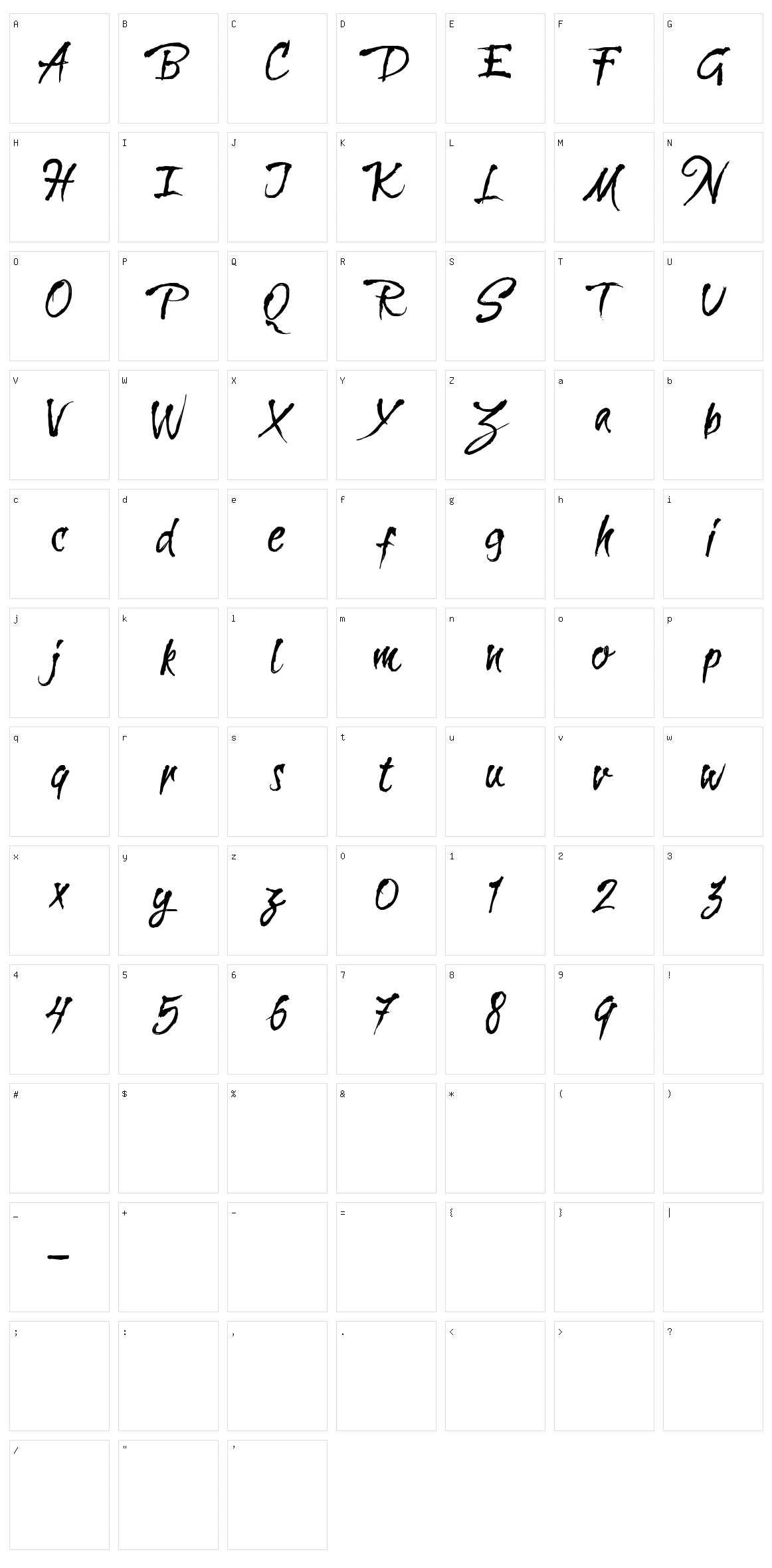
The free font CF La Sorciere Noire is carefully designed by Cloutierfontes, showcasing a thoughtful balance of creativity and usability and falls under the Script font style. When you download the ZIP file, it contains only 458.43 KB of font files, making it lightweight and quick to download. Please review the license details below to understand permitted usage and distribution rights. If license information is not available, we recommend using this font for personal projects only or contacting the author directly for commercial usage permissions.